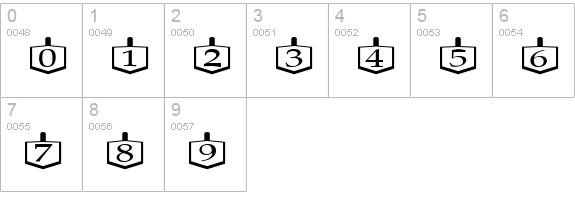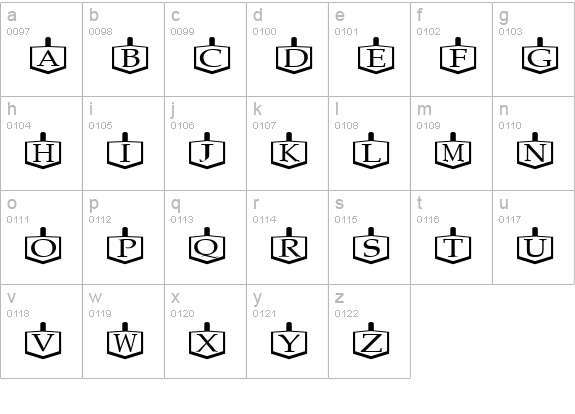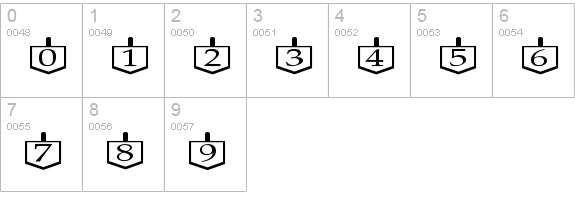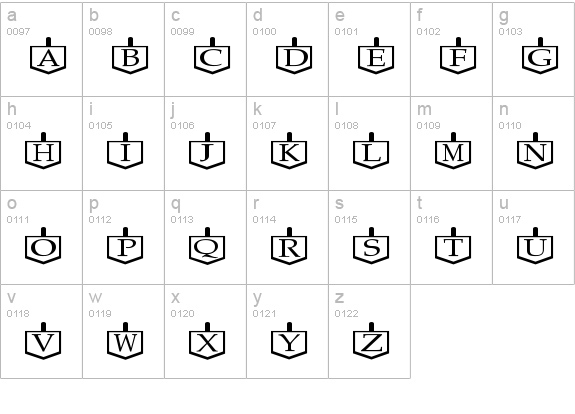
Dreidels Regular Font Details
Dreidels Regular is the standard, neutral variant in the Dreidels typeface family \xE2\x80\x94 well suited to general body text, paragraphs, and standard typographic work.
Dreidels Regular font is a versatile and modern typeface that is perfect for a wide range of design projects. With its clean lines and elegant curves, Dreidels Regular is both stylish and easy to read. This font is ideal for branding, logos, packaging, posters, and more. What sets Dreidels Regular apart is that it is available for free download at FontsMarket.com. This means you can easily access this high-quality font to elevate your designs without any cost. Don't miss out on the opportunity to enhance your projects with the sleek and professional look of Dreidels Regular font!